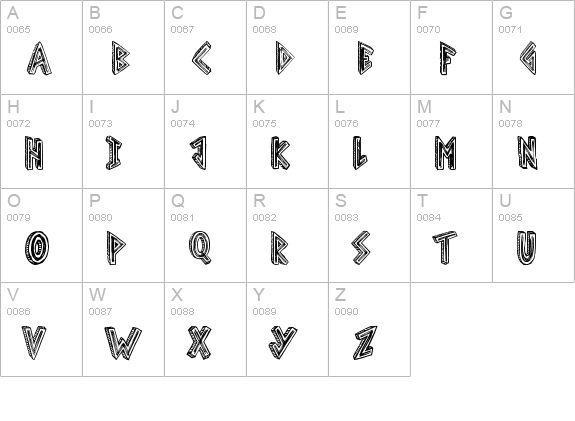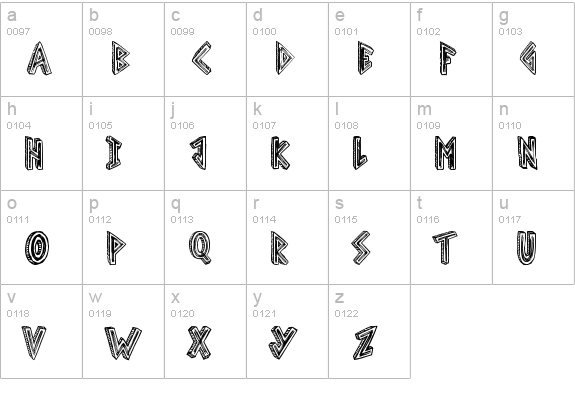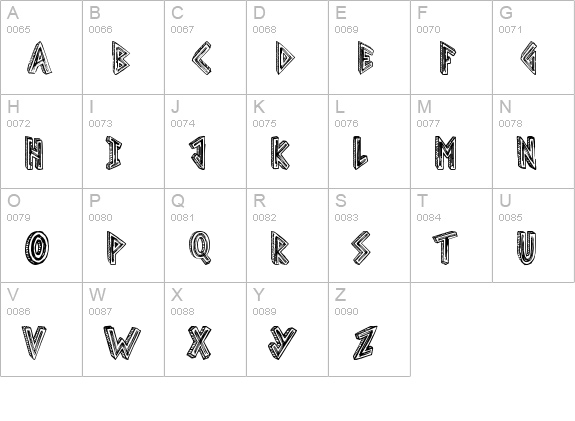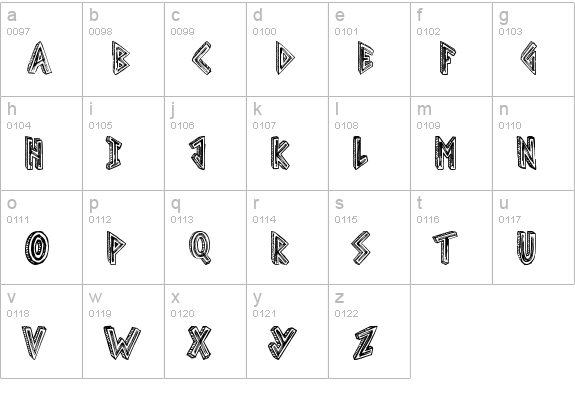
Butt Cheek Drummers Font Details
Butt Cheek Drummers font is the ultimate expression of rhythm and audacious creativity. Carrying the essence of rebellious beats and unconventional melodies, this font is a celebration of those who dare to march to the beat of their own drum - or, in this case, their own butt cheek. With each letter meticulously crafted to resemble the unique contours and playfulness of a bouncing derriere, Butt Cheek Drummers font brings a whole new level of cheekiness to your typographic endeavors. This font is not just about making a statement, it's about making a bold impact. Whether you're designing a poster for a music festival, creating eye-catching headlines for a magazine spread, or simply adding a touch of whimsy to your personal projects, Butt Cheek Drummers font ensures your message will resonate with a touch of playful rebellion. The best part? Butt Cheek Drummers font is available for free! That's right, you can download this captivating typeface without spending a dime. Thanks to FontsMarket.com, you can unleash the power of Butt Cheek Drummers font in your designs, without breaking the bank. So why wait? Go ahead and grab this free font today and let your creativity soar to new, cheeky heights. Remember, the rhythm is in your hands, or rather, your butt cheeks!